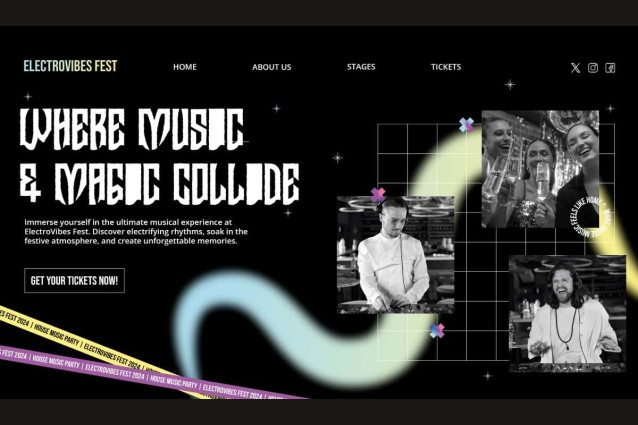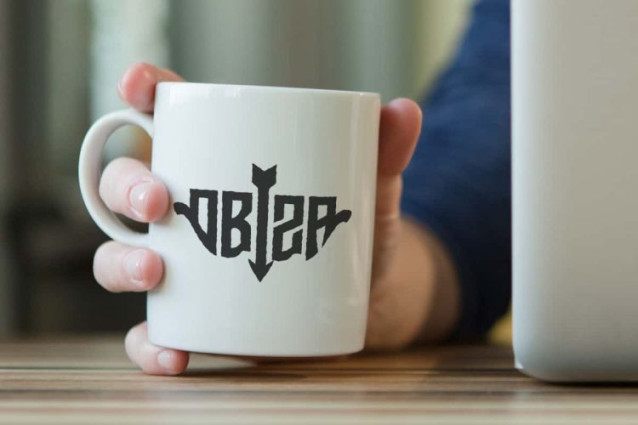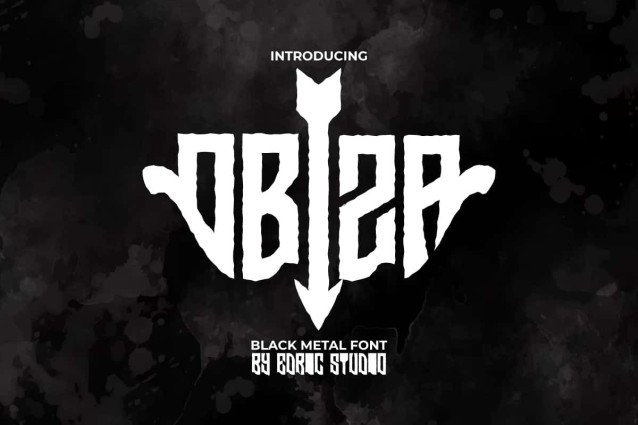
Obiza Font
Obiza Font is a heavy and death metal display font made exclusively in a dark theme. This font has an aggressive and bold look, along with cool alternatives that reflect the aesthetics of the horror genre itself. Perfect for blogs, brand logo, covers, decal sticker, headers, mockup, packaging, poster, printed materials, t-shirt, template, title, website, and more.
Obiza Font includes a complete set of ALL CAPS for both Uppercase and Lowercase letters, Numbers, Punctuation, Symbols and Alternates. It has a blackletter character with a light texture that looks unique in a metal touch that when combined forms a bow and arrow shape. The use of this effect makes the font look more alive and fierce. This font suitable for accessories and merchandise, clothing brand, digital marketing, event or party organizer, fashion, film, graphic designer, match manufacturer, movie, and more.